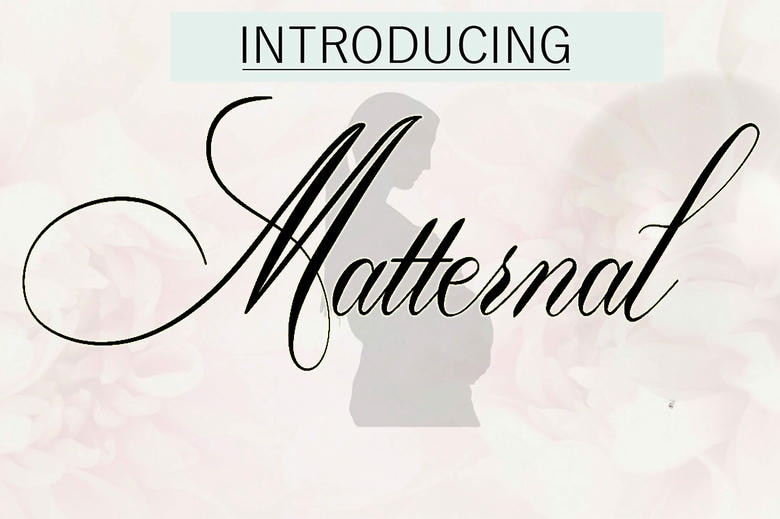
Matternal Font
Matternal is a cursive font that combines classic calligraphy with a modern touch. The uppercase letters feature graceful flourishes, and the lowercase letters have smooth, balanced curves and loops.
This font is great for wedding invitations, greeting cards, branding, logos, packaging, and other decorative projects. It adds a touch of sophistication and charm to your designs. Its classic style makes your work stand out with artistic flair, but it remains easy to read. You can use it for digital graphics, social media, or print.
Matternal Calligraphy Script Font